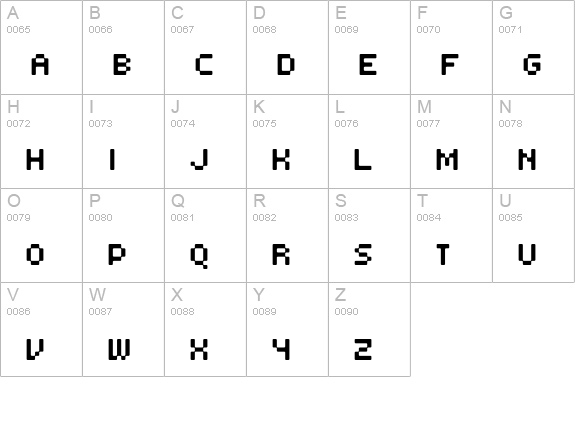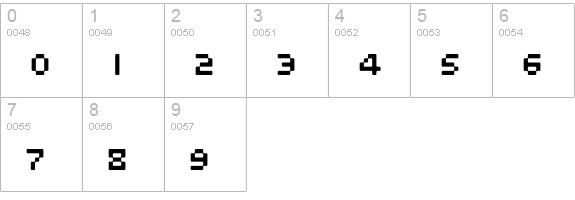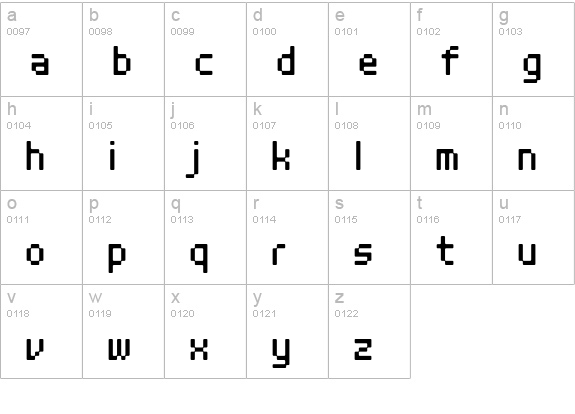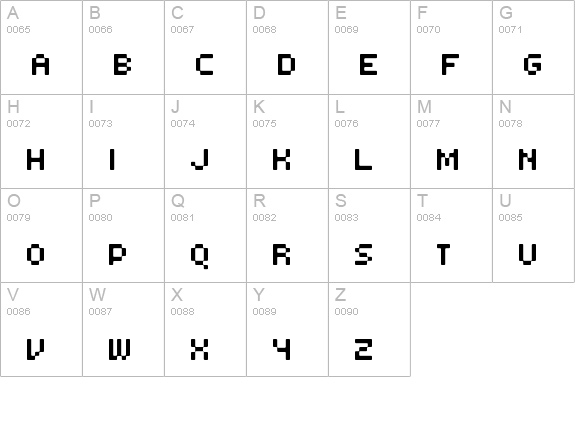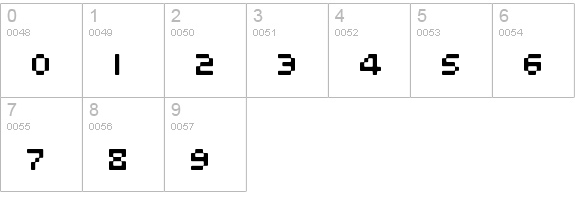
PFRemix Font Details
PFRemix is a modern and stylish font that is perfect for adding a touch of elegance to your design projects. This versatile typeface features clean lines and a contemporary look that is sure to make a statement. Whether you're designing a website, creating a logo, or working on a print project, PFRemix is the ideal choice for adding a touch of sophistication to your work. Best of all, PFRemix is available for free download at FontsMarket.com, making it easy to access this beautiful font and incorporate it into your designs. With its sleek and professional design, PFRemix is sure to elevate your projects and help you stand out from the crowd. Download PFRemix today and take your designs to the next level.